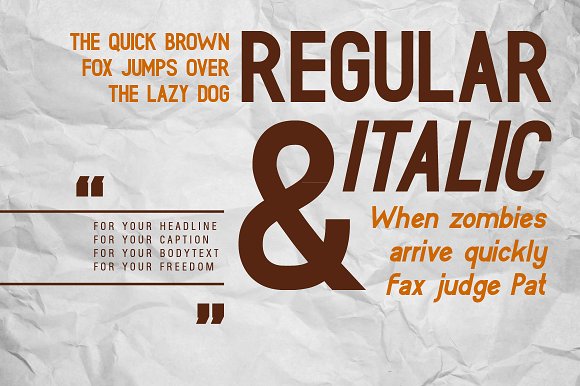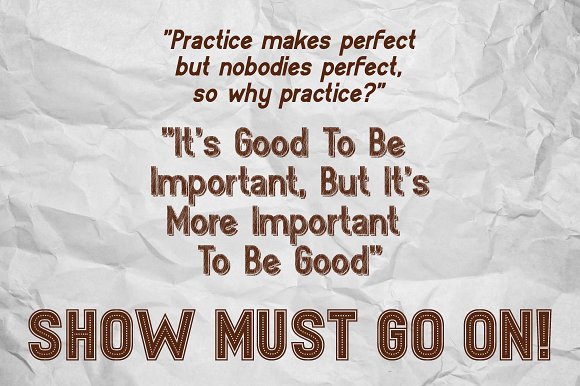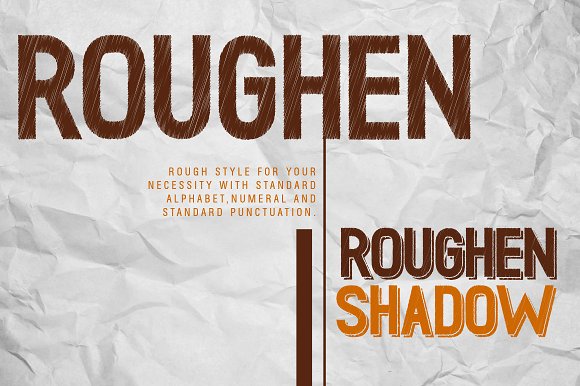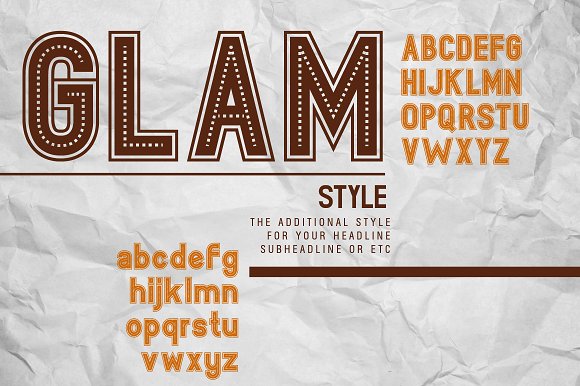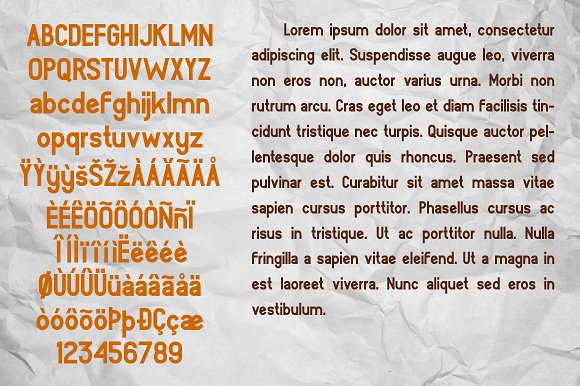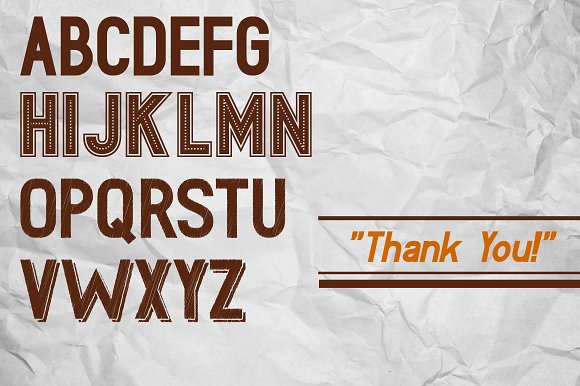
The Birth of a Unique Typeface
Have you ever stared at a blank page, waiting for inspiration to strike? For designers, this moment can be both exhilarating and intimidating. It’s a chance to break free from the norm and create something truly innovative. For typeface designer [Name], this moment sparked the creation of the Cakmacak Font – an experimental typeface that defies conventions and pushes the boundaries of typography.
| 👤 Author | Arterfak Project |
Cakmacak Font is a bold experiment in oblique and narrow font design, inspired by the quirks of traditional typography. Its unique characteristics make it an invaluable asset for designers looking to add a touch of personality to their work. Whether you’re working on a branding project or a creative campaign, the Cakmacak Font offers a fresh perspective that’s sure to set your work apart.
Cakmacak Font Key Features
- Font Family: Cakmacak Font is a unique and custom-designed font family, offering a range of styles to suit various design needs.
- Character Set: The Cakmacak Font includes a comprehensive character set, covering Latin, Cyrillic, and Greek alphabets, as well as a range of punctuation and symbols.
- Unique Characteristics: The Cakmacak Font features a distinctive, hand-drawn aesthetic, with intricate details and flourishes that set it apart from more traditional font designs.
Cakmacak Font Review
Overall, I have mixed feelings about the Cakmacak font. While it’s unique and offers some interesting features, it also has some limitations that might make it less suitable for certain projects.
- Unique and playful design: The Cakmacak font is certainly eye-catching and can add a touch of whimsy to any design.
- Customizable: The font offers a range of customization options, including font sizes, colors, and spacing.
- Legible at various sizes: The font is readable even at smaller sizes, making it a good choice for digital applications.
- Limited character set: The font only includes a limited set of characters, which may not be suitable for projects that require a wide range of languages or special characters.
- Not suitable for formal applications: The Cakmacak font’s playful design may not be suitable for formal or professional applications, such as resumes or business reports.
- May be distracting: The font’s unique design may be distracting or overwhelming in certain contexts, such as in large blocks of text.
The Cakmacak font is a fun and versatile option that can add a touch of personality to a design. However, its limitations may make it less suitable for certain projects or applications. With some careful consideration and planning, it can be a great choice for the right project.
Getting the Most Out of Cakmacak Font
For optimal results, use the Cakmacak font in bold or italic styles to add emphasis to your text. You can also pair it with other fonts to create a unique and eye-catching design.
The Cakmacak font is perfect for creative projects such as:
- Infographics
- Brochures
- Posters
- Business cards
Alternatives to Cakmacak Font
Comparison to Cakmacak Font: While Cakmacak Font is a playful, handwritten font, Pacifico is more refined and elegant. Pacifico is better suited for formal and high-end designs, whereas Cakmacak Font is perfect for casual and creative projects.
Great Vibes is a modern, elegant script font that’s perfect for creating a sense of sophistication and refinement. It’s ideal for wedding invitations, event branding, and luxury product packaging.
Comparison to Cakmacak Font: Like Pacifico, Great Vibes is a more refined and elegant font compared to Cakmacak Font. Great Vibes has a more modern and sleek feel, making it perfect for contemporary and high-end designs.
What is the recommended font size range for Cakmacak?
The recommended font size range for Cakmacak is between 10pt and 24pt. This range allows the font to be legible and visually appealing in most design applications. However, feel free to experiment with different font sizes to achieve the desired effect in your design.